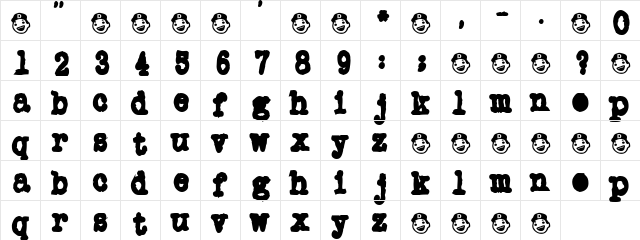
TypeOMatic Regular
Design Context for TypeOMatic Typeface
TypeOMatic is a composed and adaptable typeface that performs quietly and consistently across a wide range of design contexts.